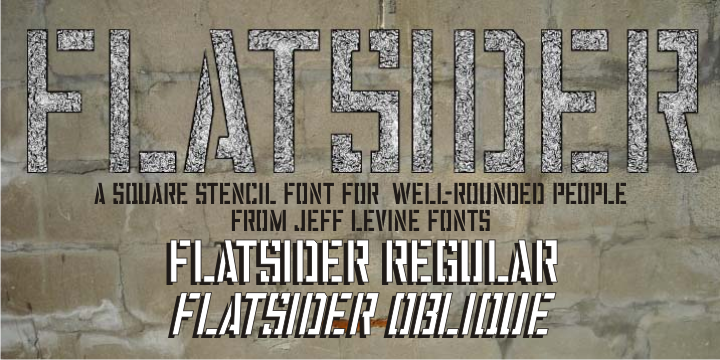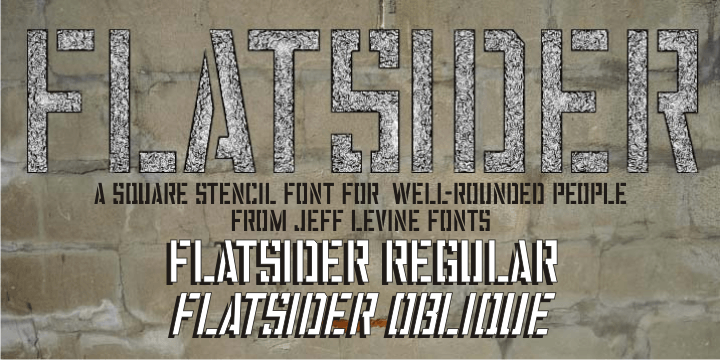
Flatsider JNL is a stencil font family. This typeface has two styles and was published by Jeff Levine Fonts.
Flatsider JNL is a simple block (square) stencil font available in both regular and oblique versions. Plain, stark and with no unwanted embellishments, Flatsider JNL gives the look of structured compliance to any stencil-based text.